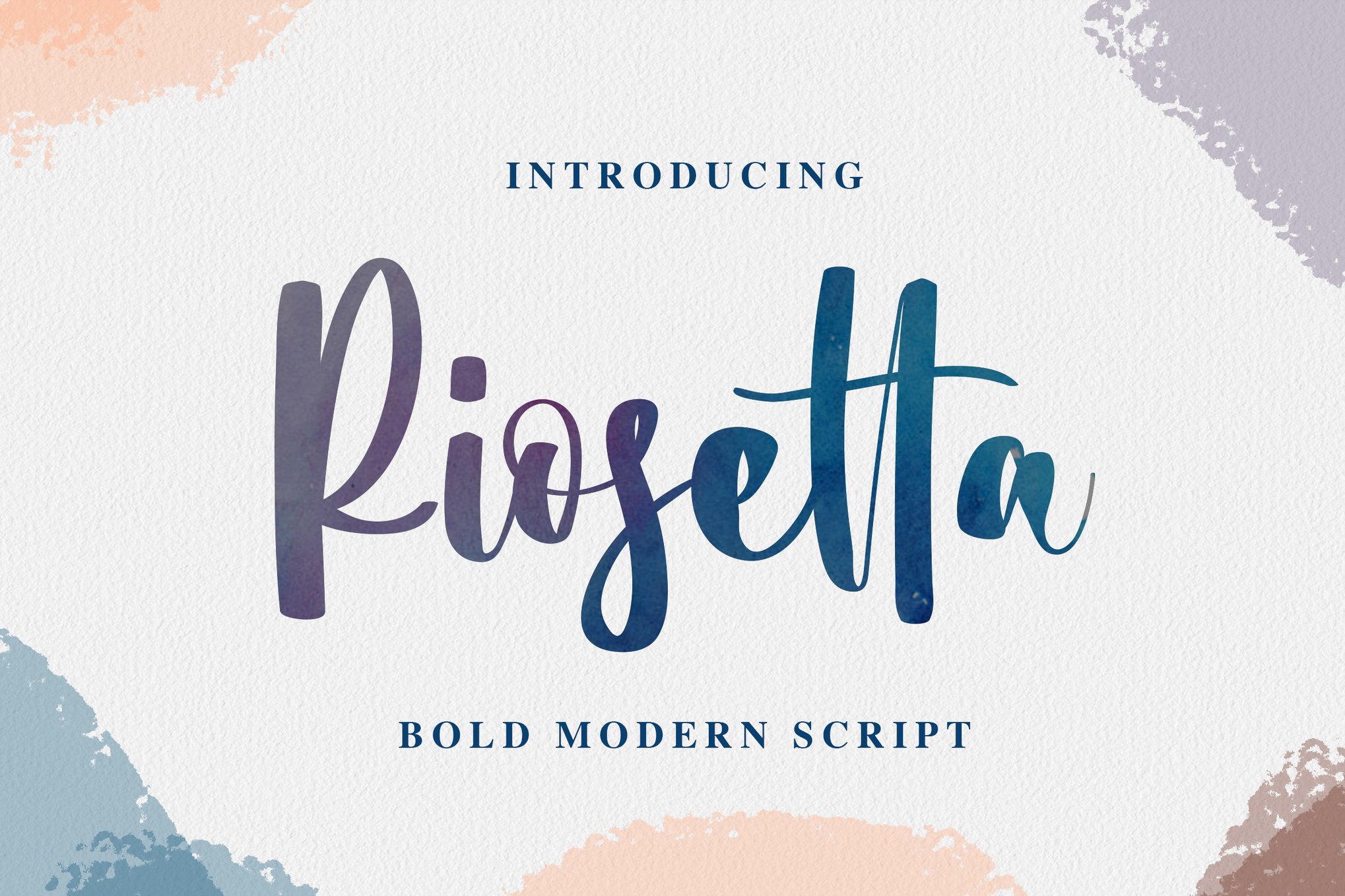
Riosetta - Bold Modern Script Font
Riosetta - Bold Modern Script Font is perfect for various design applications including luxury brand logos, high-end fashion campaigns, premium beauty product packaging, sophisticated wedding invitations, upscale restaurant branding, boutique hotel signage, elegant perfume labels, artistic portfolio headers, modern calligraphy workshops, and contemporary lifestyle brand identities. This striking typeface excels in projects requiring confident elegance and modern sophistication that commands attention while maintaining refined luxury appeal.
What makes Riosetta - Bold Modern Script Font so exciting is its powerful combination of traditional calligraphy craftsmanship with contemporary boldness that creates commanding presence without sacrificing elegance. The font features dramatic thick-to-thin stroke variations, flowing connections that suggest confident brushwork, and modern proportions that feel both timeless and current. Its distinctive bold character and sophisticated flow make it ideal for luxury brands seeking to communicate authority, premium quality, and the perfect balance between traditional craftsmanship and modern confidence.
The Riosetta - Bold Modern Script Font family includes the signature bold script along with decorative swashes, alternate characters, and stylistic ligatures that enhance its versatility for different luxury applications. Each element maintains the font's signature confident character while providing options for various sophisticated design approaches. The family also features ornamental flourishes, elegant borders, and premium decorative elements that can be combined with the letterforms to create cohesive luxury design systems.
Whether you're developing premium branding, luxury campaigns, or sophisticated communications, Riosetta - Bold Modern Script Font Free Download delivers commanding typography that establishes immediate credibility and luxury positioning. This typeface transforms ordinary messages into powerful statements that communicate confidence, quality, and sophisticated taste. The font's bold appeal makes it particularly effective for luxury fashion houses, premium beauty brands, and high-end service providers targeting discerning clientele who appreciate bold elegance.
Riosetta - Bold Modern Script Font stands out by delivering authentic luxury authority that feels genuinely sophisticated rather than artificially ornate or overly decorative. Its carefully crafted stroke weights and flowing proportions ensure that designs feel confidently elegant while maintaining excellent readability for luxury messaging. From prestigious brand communications to exclusive event materials, this font provides designers with tools to create communications that celebrate bold sophistication and demonstrate mastery of contemporary luxury design through confident, modern script typography.